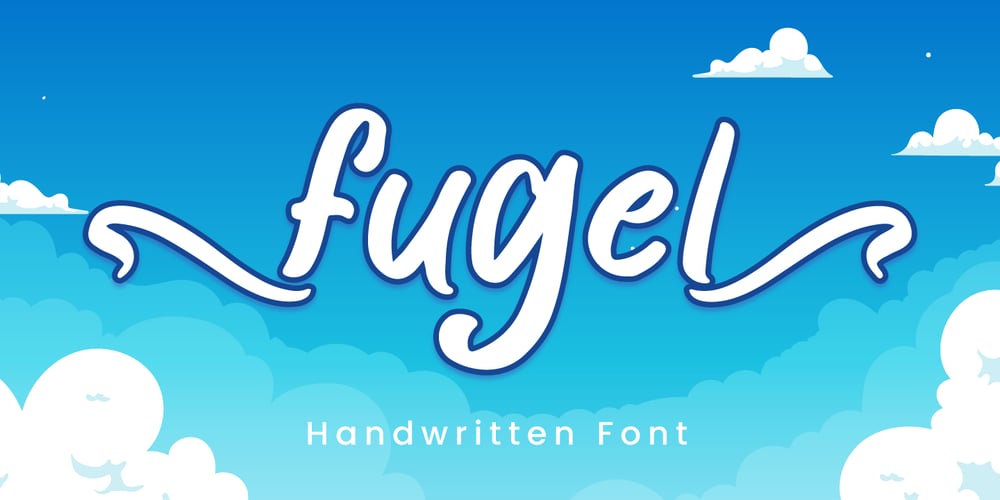
Fugel
Fugel font
Fugel Font Family was designed by Fadli Ramadhan Iskandar and published by Attype Studio. Fugel contains 1 styles and family package options. Fugel is a delicate and incredibly distinct handwritten font with beginning & ending swashes. Fall in love with its incredibly versatile style and use it to create spectacular designs!Fugel is perfect for branding, logo, invitation, stationery, social media post, product packaging, merchandise, blog design, game titles, cute style design, Book/Cover Title and more.What’s Included :- Fugel.otf- Beginning & Ending Swash- Multilingual Support —Hope you enjoy with our font!Attype Studio